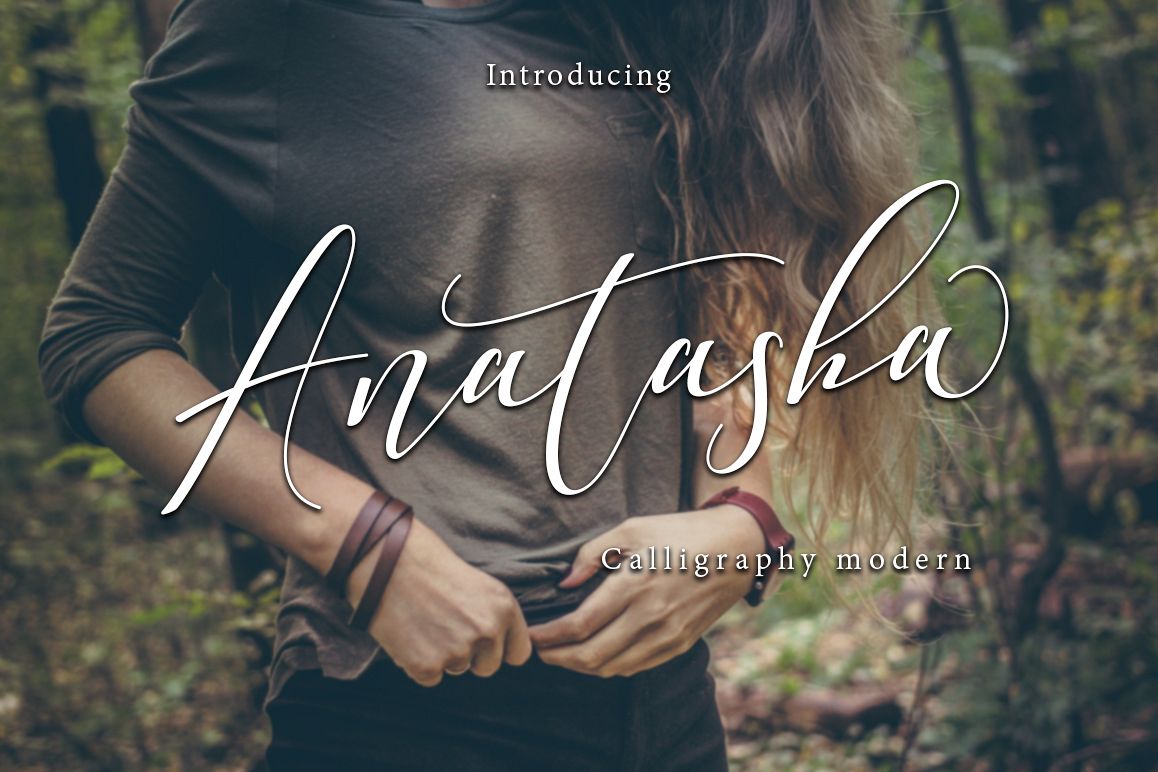
Anatasha
IntroducingAnatasha modern script style, decorative characters and a dancing baseline! So beautiful on invitation like greeting cards, branding materials, business cards, quotes, posters, and more!!Anatasha with 483 glyphs. The alternative characters were divided into several Open Type features such as Swash, Stylistic Sets, Stylistic Alternates. The Open Type features can be accessed by using Open Type savvy programs such as Adobe Illustrator, Adobe InDesign, Adobe Photoshop Corel Draw X version, And Microsoft Word. And this Font has given PUA unicode (specially coded fonts). so that all the alternate characters can easily be accessed in full by a craftsman or designer.The ZIP file are include the following :